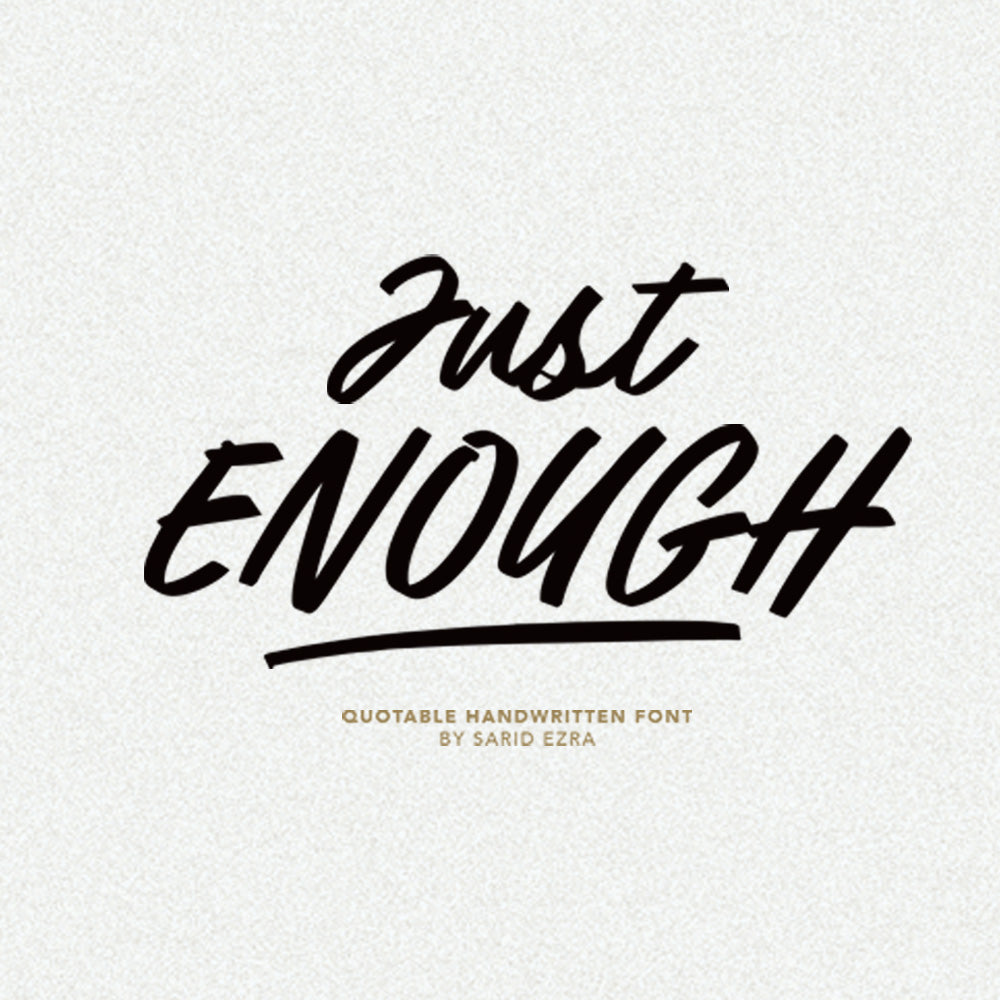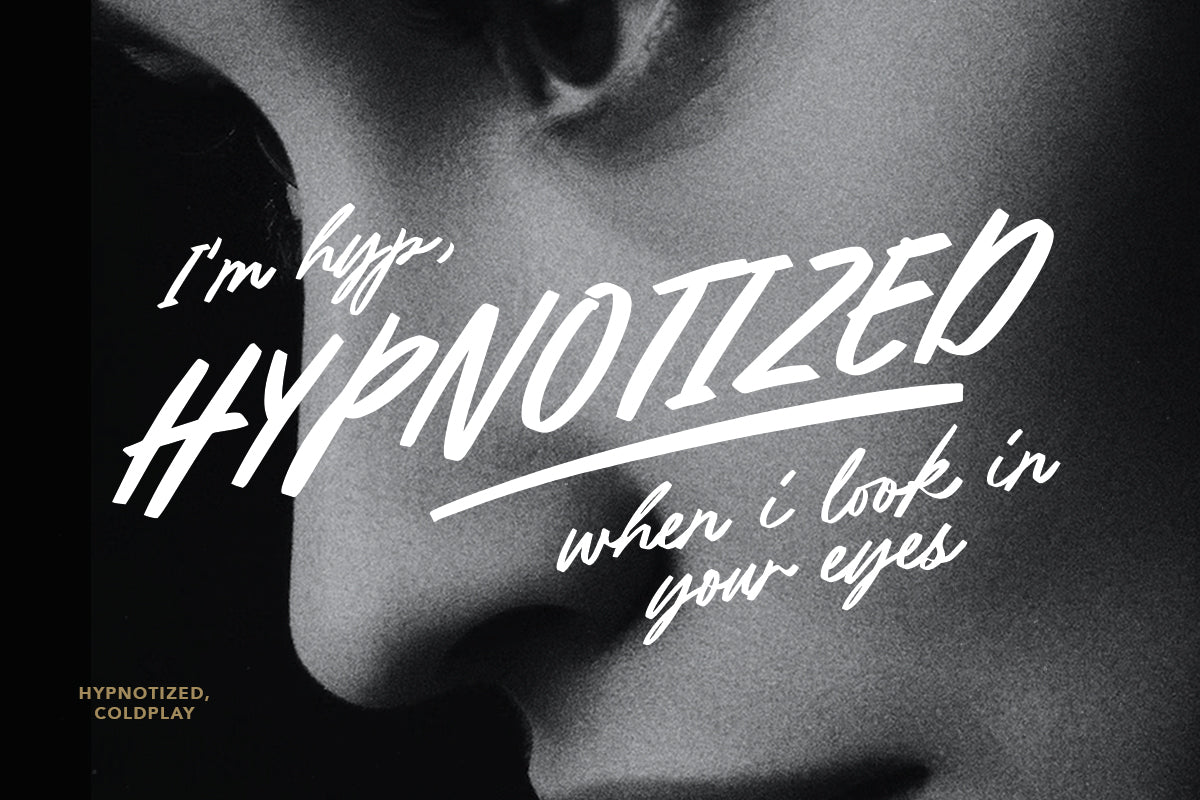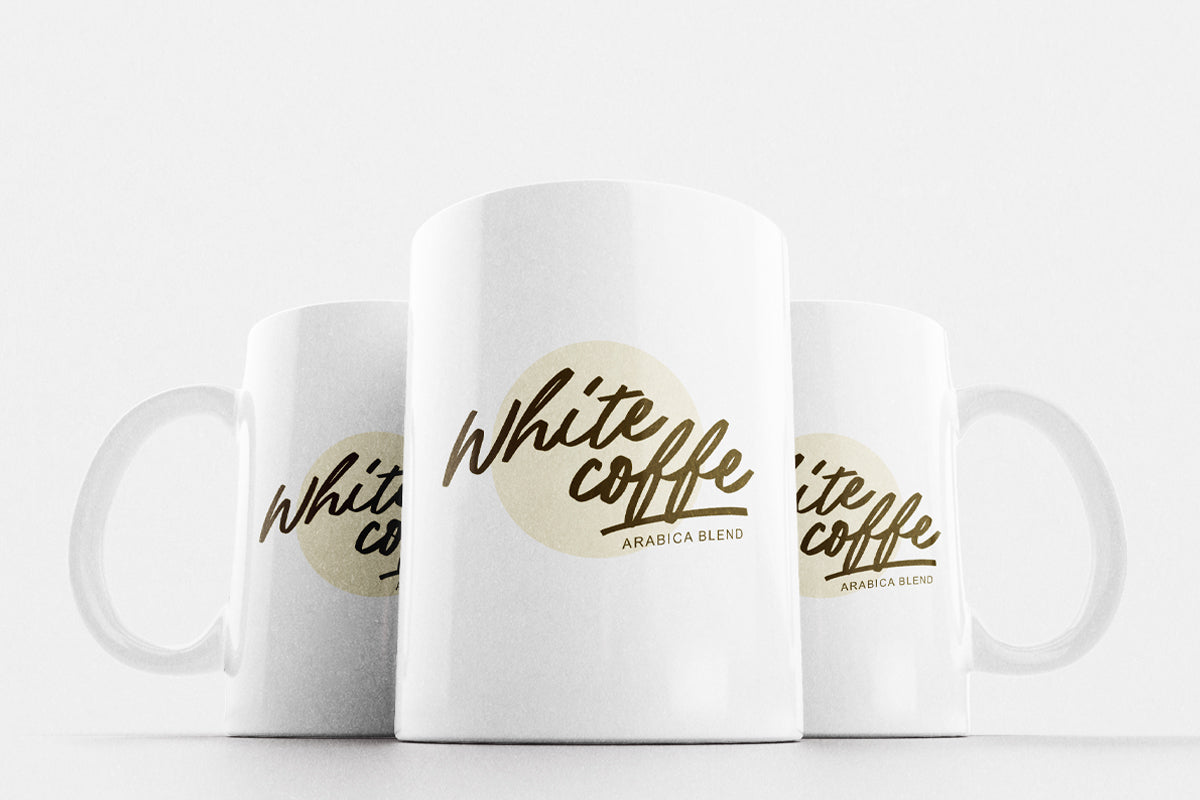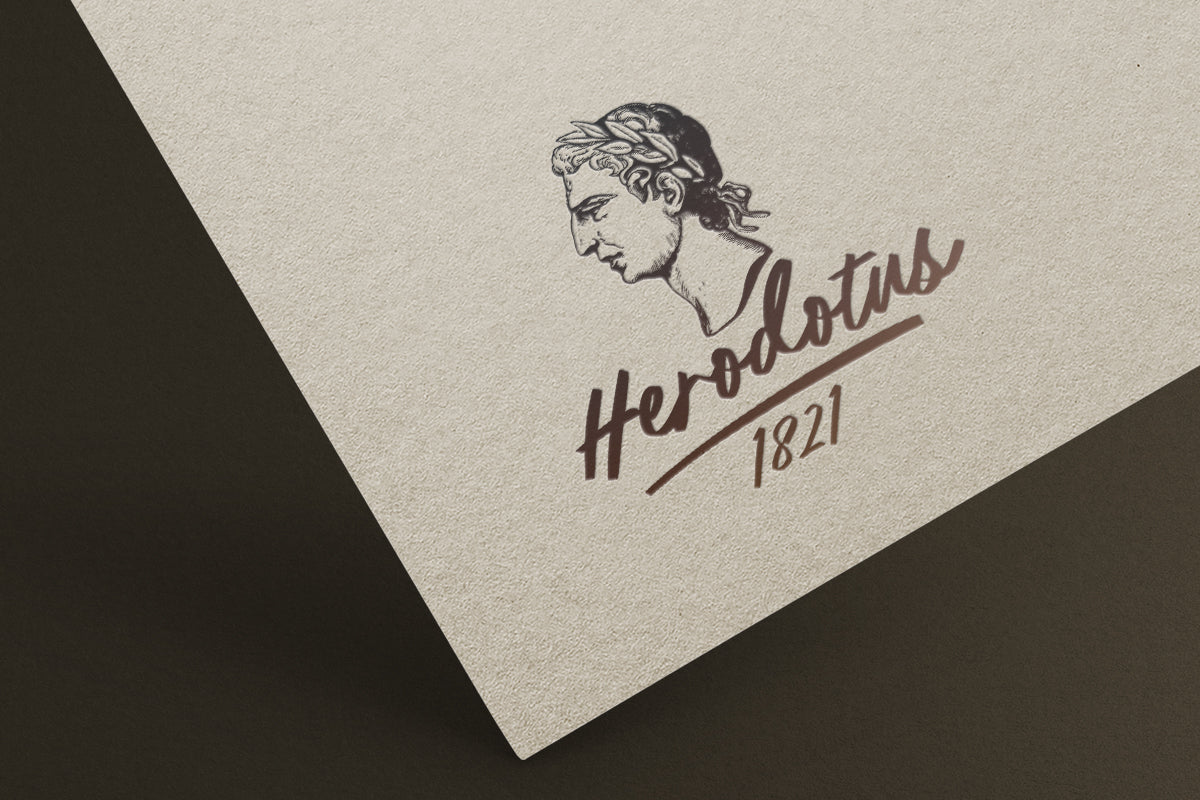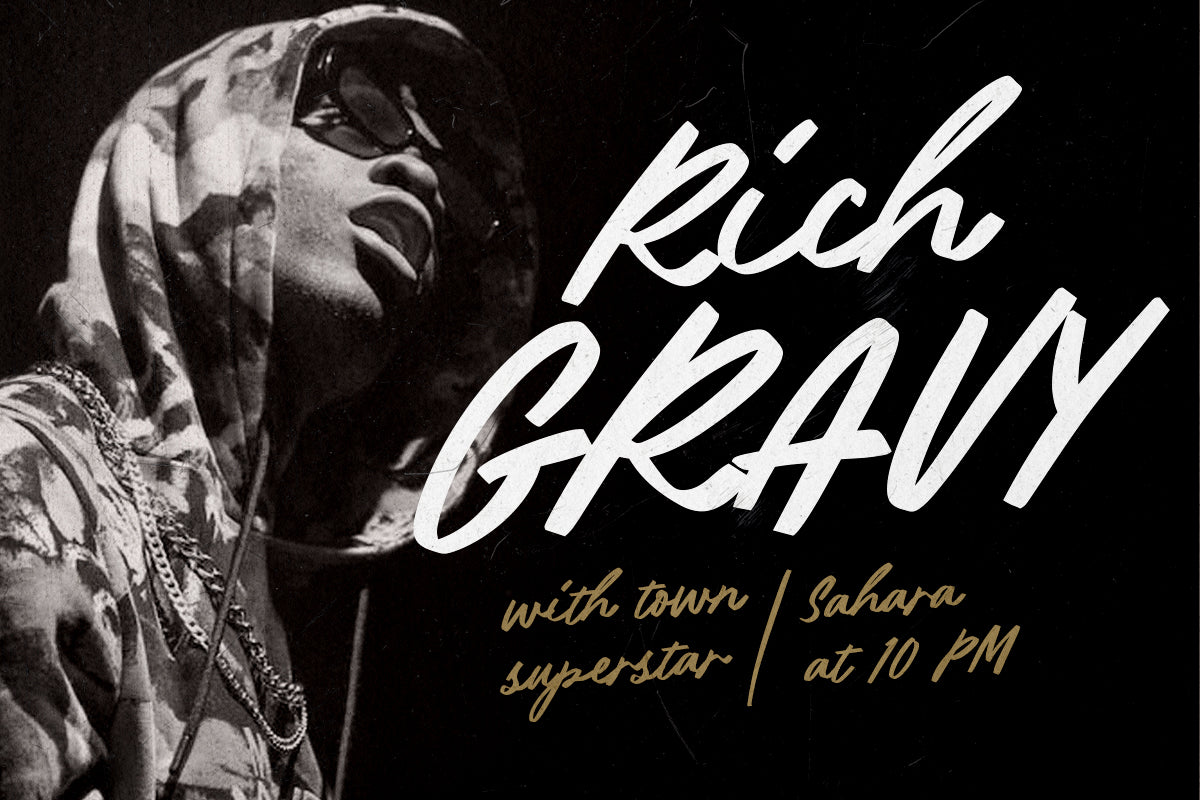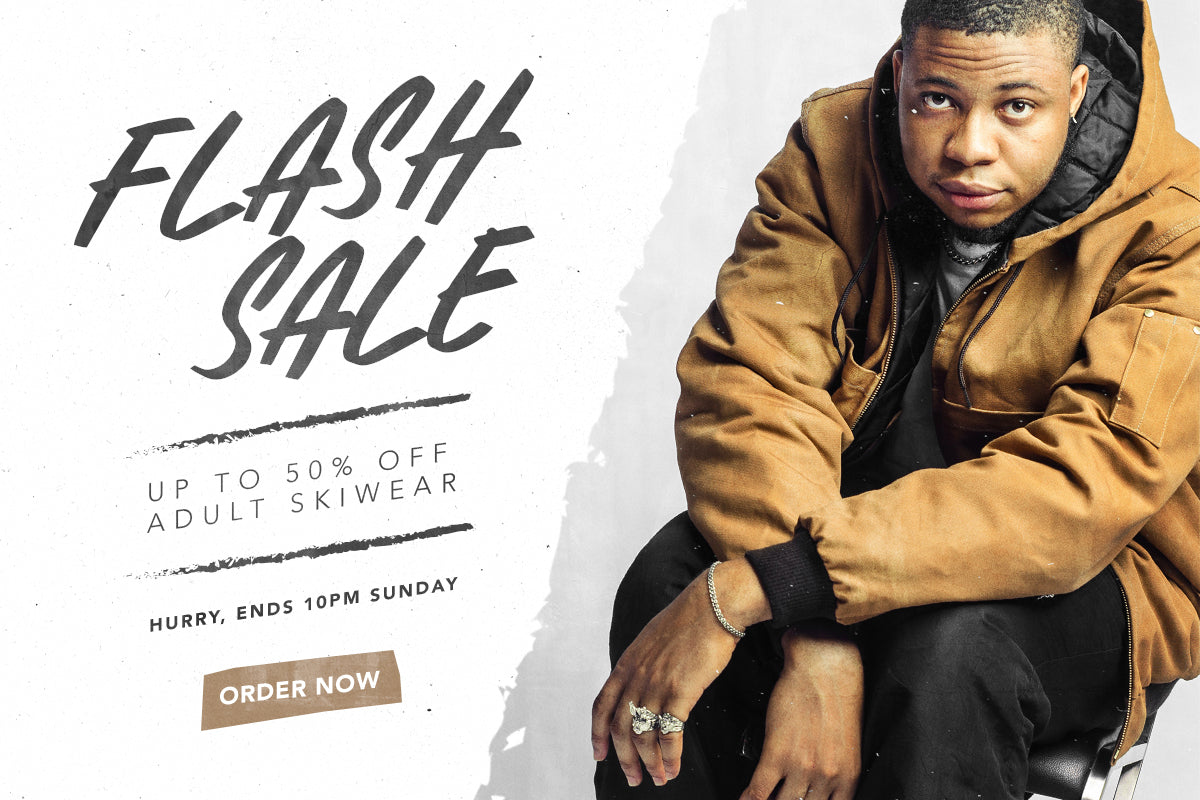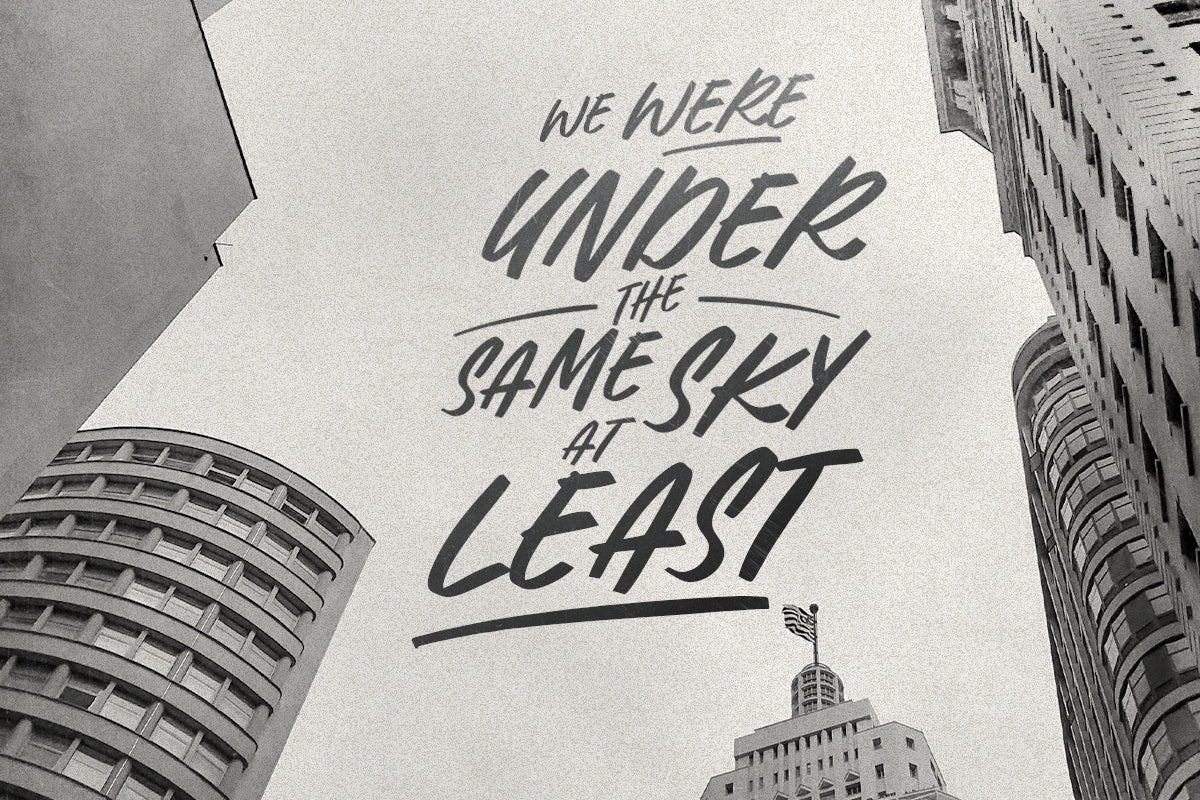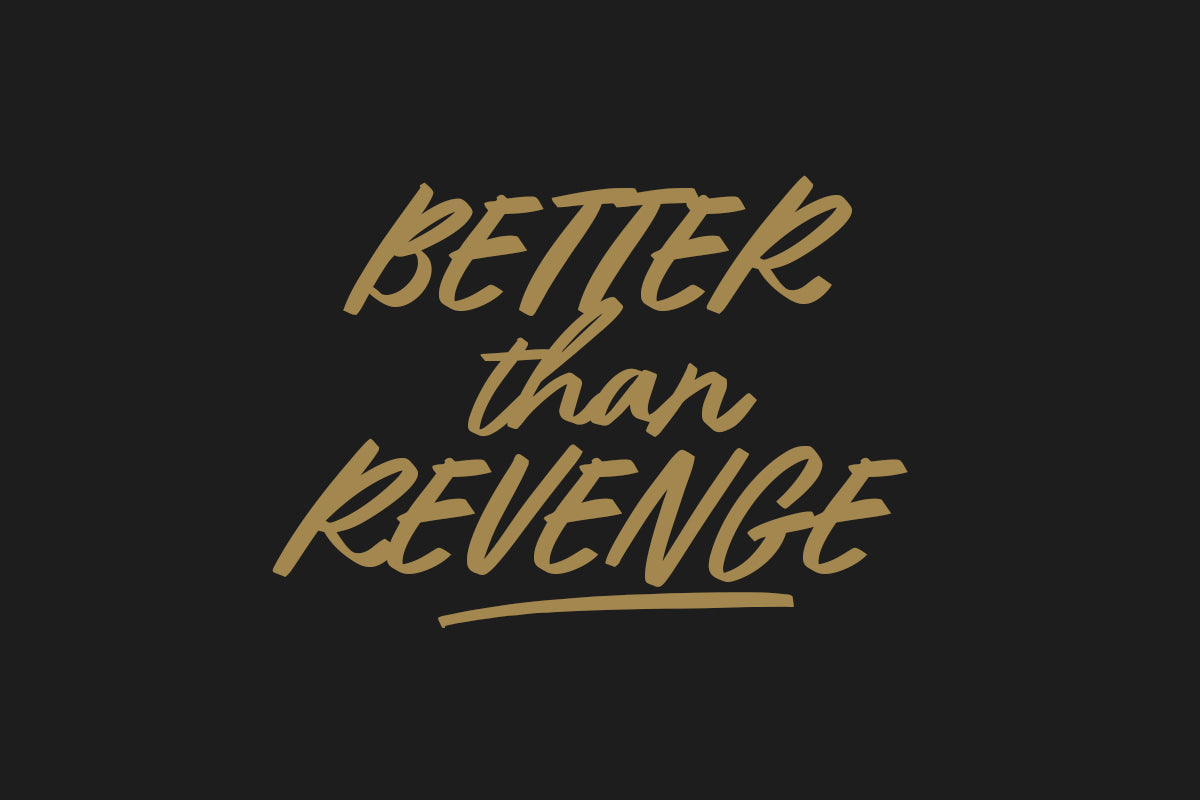
Just Enough - Quotable Font
Just Enough is handwritten quotable font that you can use both lowercase & uppercase separately and will still looking good. You can use this font for any purposes such as a logotype, branding, slogan and very suitable for quotes. This font is so versatile, you can combine it wit your fonts collections. Just Enough also contain ligature and underline. You can access the underline from opentype feature, just type underscore + number(1-3) for example: st_1ory. This font also support multilingual.
Just Enough is a versatile handwritten font that supports both lowercase and uppercase letters, featuring ligatures and underlines accessible through OpenType. It is multilingual and can be easily combined with other fonts in your collection.